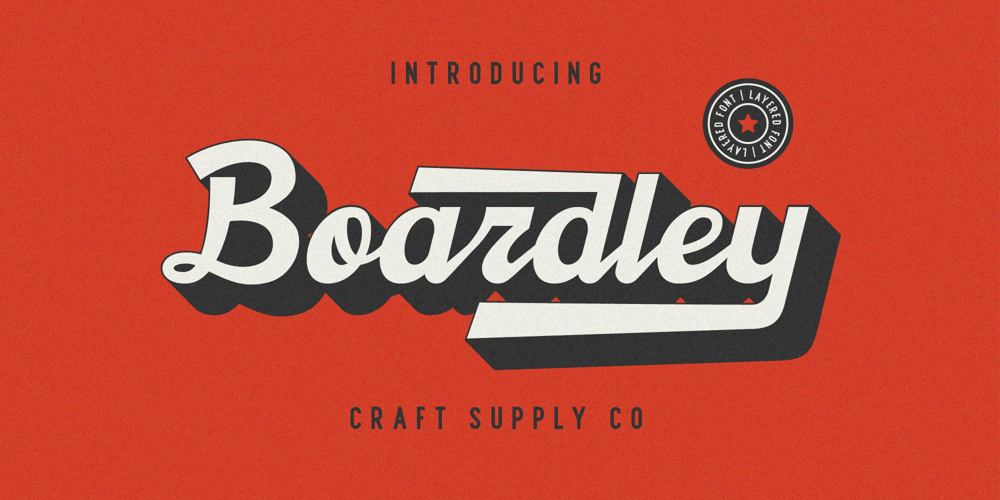
Boardley Font Family was designed by Trio Nazzar Saputra, Wahyu Hadi Yuana and published by Craft Supply Co. Boardley contains 2 styles and family package options. Boardley Script is a script-style display font in two layers, Boardley Script was the result of an exploration of mid-century American and European bold script lettering for advertising. is an attractive contemporary typeface drawn from scratch with brand-new, more vigorous detailing — and layerable variations for chromatic use.